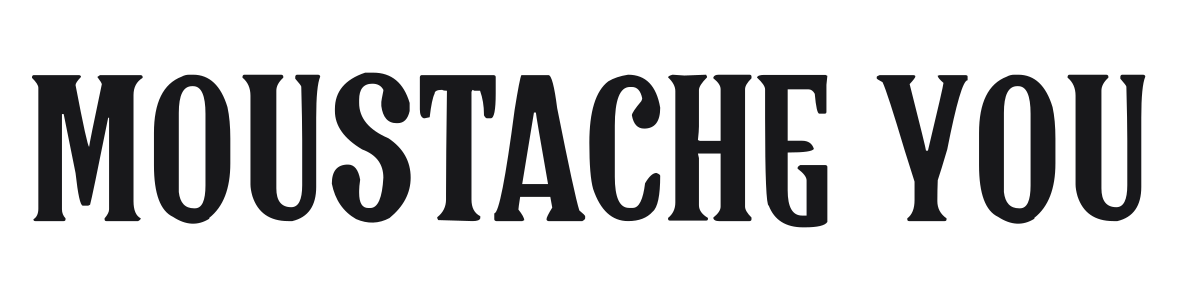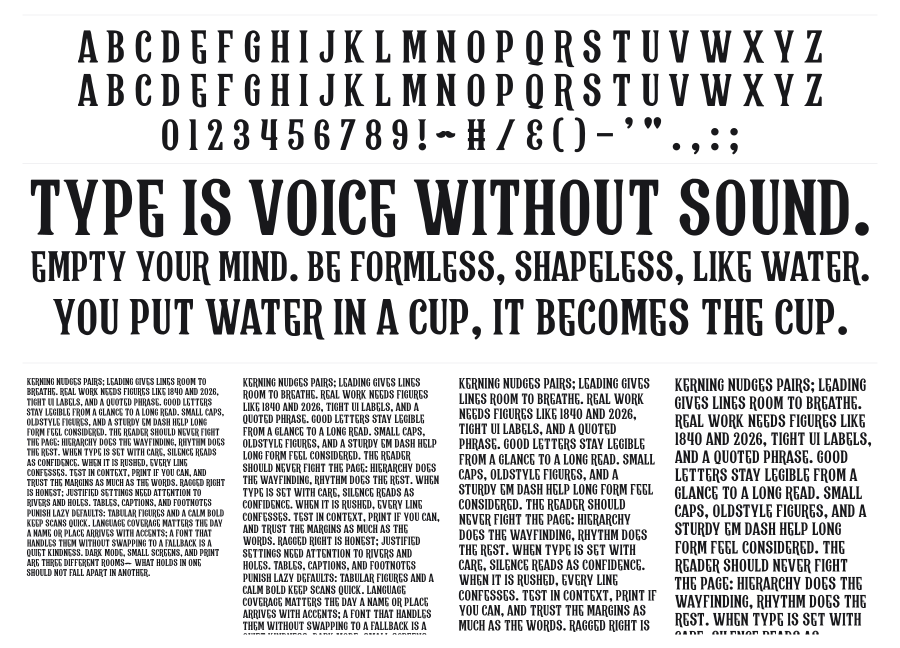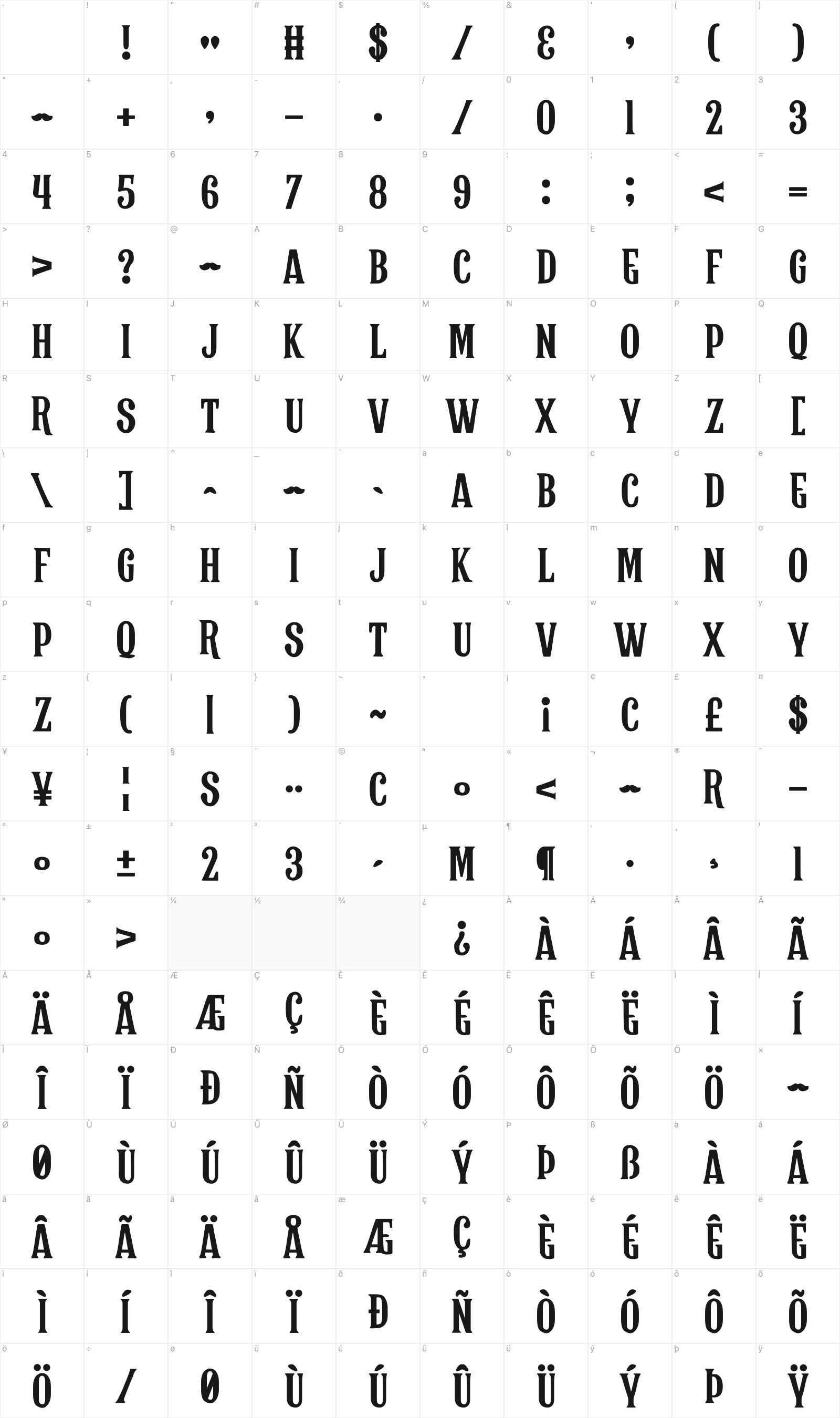
Moustache You
Moustache You is a tall, heavy condensed serif with dramatic stroke contrast and an unmistakable Victorian poster personality. The bracketed serifs and tapering strokes carry clear 19th-century heritage, somewhere between saloon signage and Art Nouveau titling. It commands attention at large sizes and suits branding that wants historical weight without resorting to blackletter.